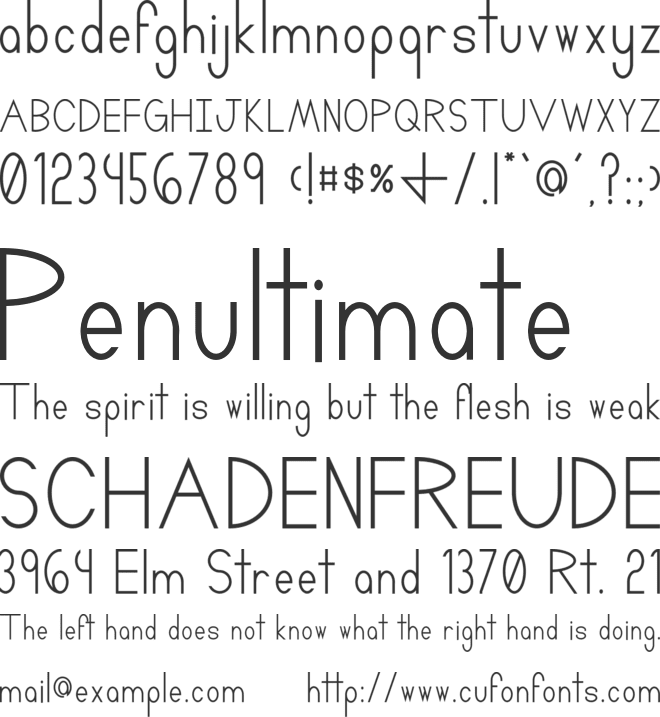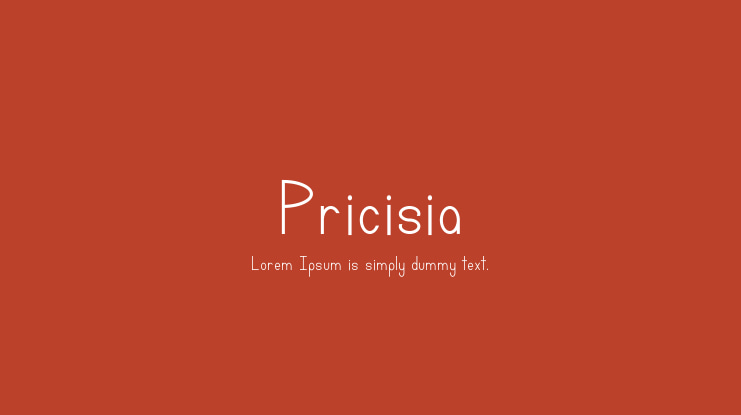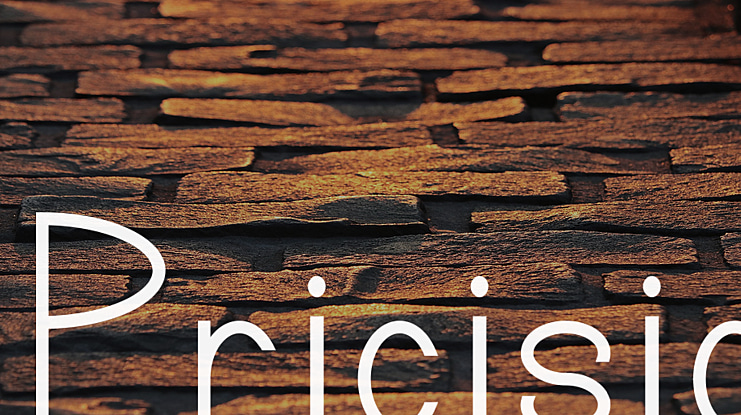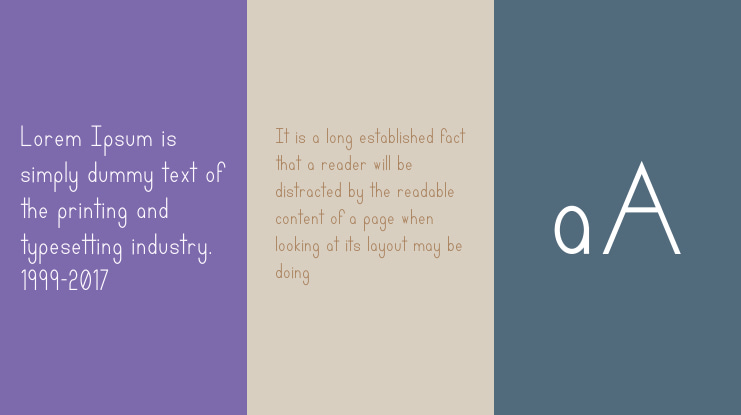
Pricisia Font
Pricisia is a monoline, sans-serif that creatively breaks a few rules. You can buy the full package (two weights, webfonts for both weights, multilingual support, extended punctuation, and four free colorful logos) on Creative Market: http://bit.ly/Pricisia